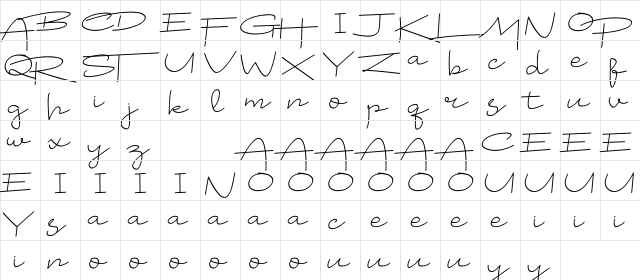
Badrudin Script Regular
| Foundry | Yantodesign Studio Co. |
| Designer | Joko Triwijayanto |
Design Context for Badrudin Script Typeface
Badrudin Script brings a calligraphic fluidity to the page — its connecting strokes and expressive curves give it an unmistakably human quality.
Font Pairing: Combine Badrudin Script with a simple geometric sans for maximum contrast — the tension between flowing curves and clean structure is a classic typographic pairing.
Pro Tip: Use Badrudin Script for short runs of text — names, titles, or taglines. Extended body copy in script faces tires the eye quickly.